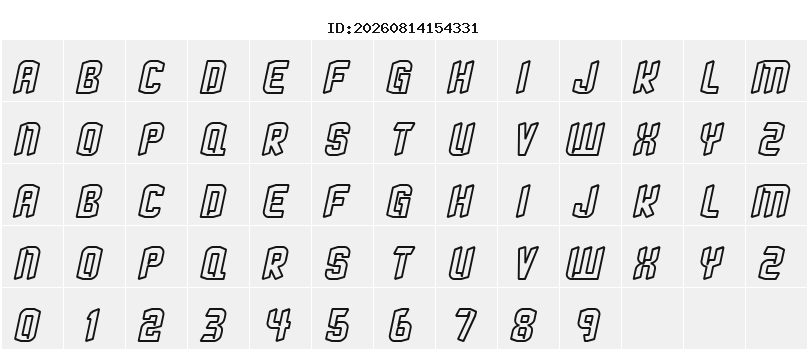
StrangePhenomena Outlined Preview
• Font Name: StrangePhenomena Outlined
• Font ID: StrangePhenomena Outlined
• Full Font Name: StrangePhenomena Outlined
• PostScript Name: StrangePhenomenaOutlined
About StrangePhenomena Outlined.ttf
StrangePhenomena Outlined.ttf is a modern, elegant sans-serif font designed for ultimate readability and visual harmony. Perfect for branding, headlines, web design, and print materials.